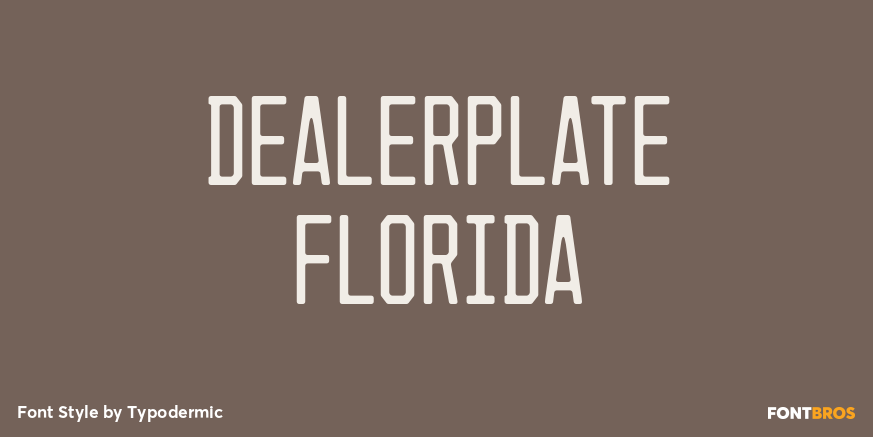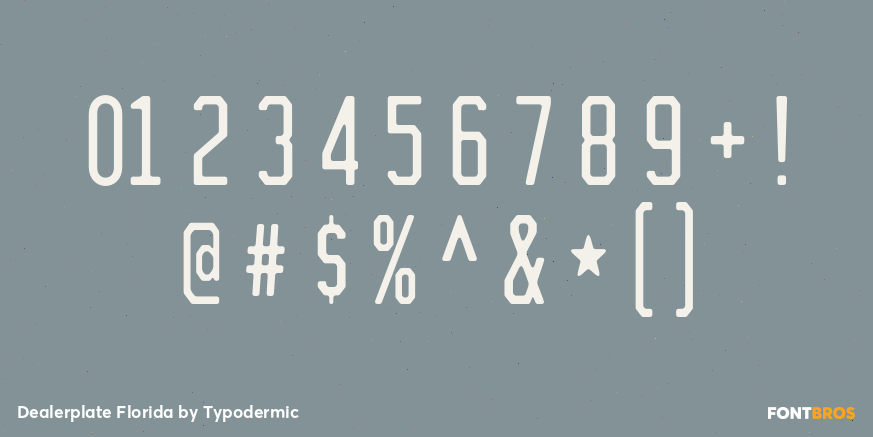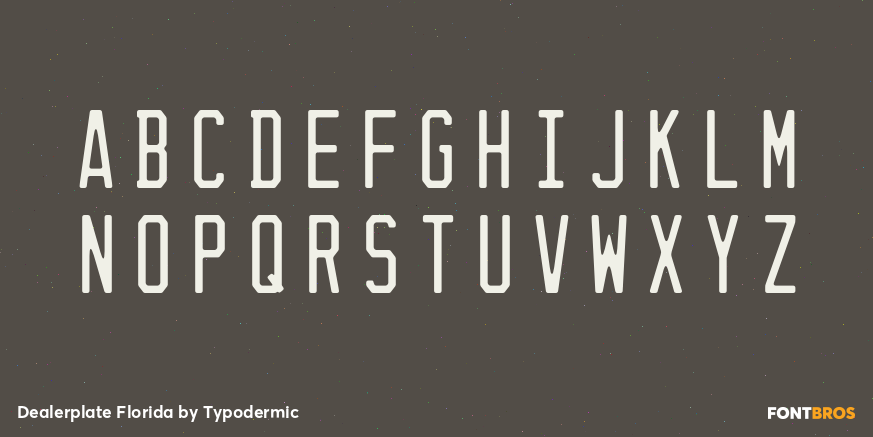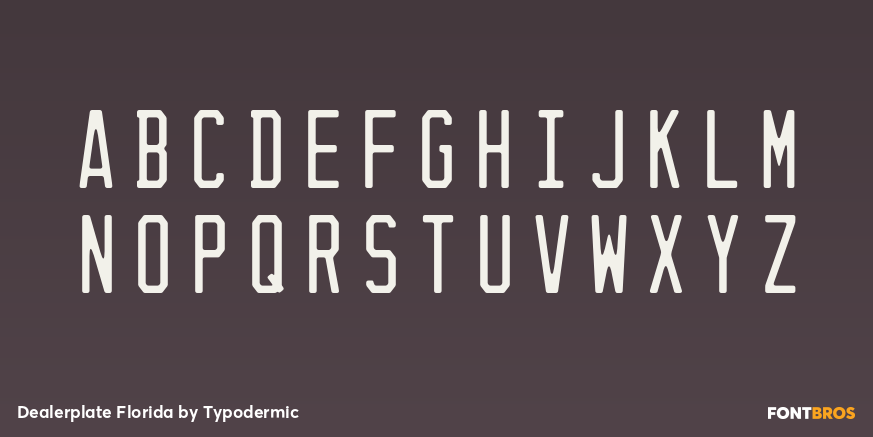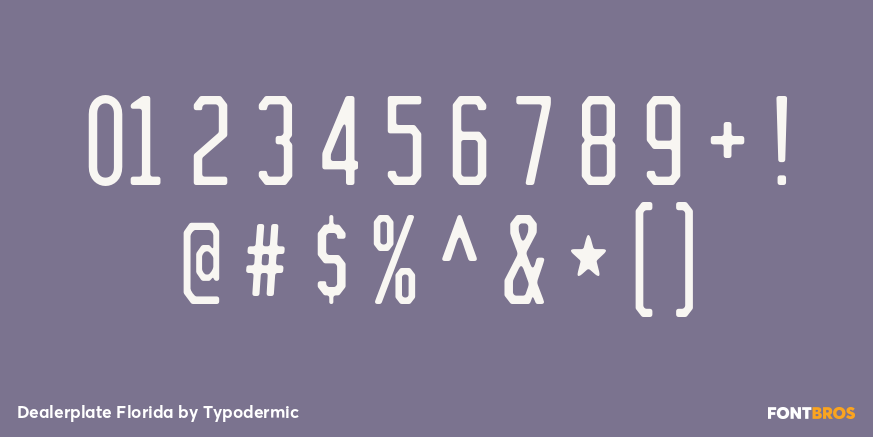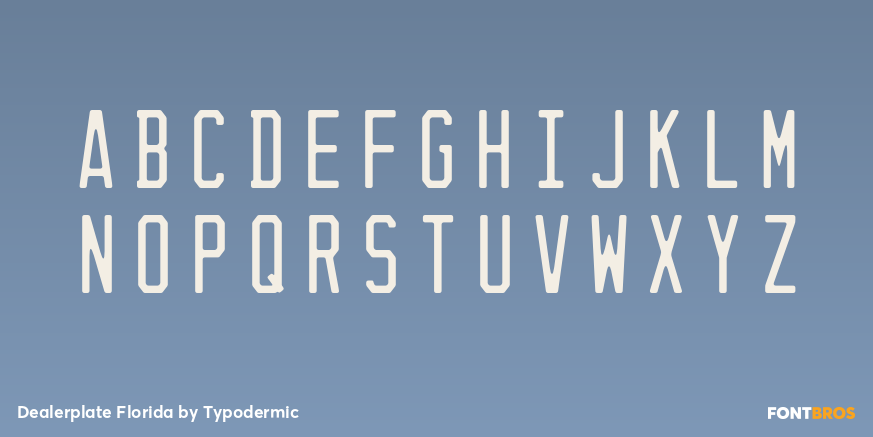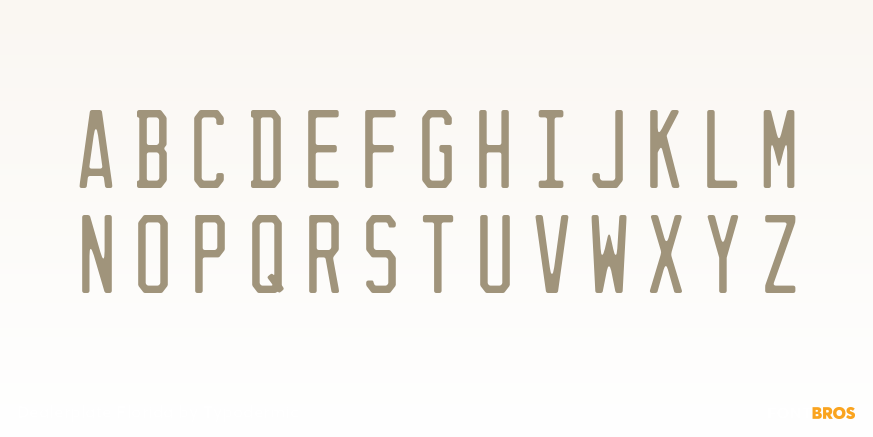
Dealerplate Florida
Dealerplate Florida turns Florida-inspired license-plate lettering into a complete alphabet for production and game work. It gives designers enough characters to build fictional registrations and matching vehicle graphics while retaining the regional cue that helps a prop belong in Florida rather than an unspecified North American setting.
Use it for Miami crime stories, coastal road scenes, tourism campaigns, police-procedural props, racing and open-world games, virtual-production traffic, impound paperwork, evidence photos, parking permits, and dealership inserts. When a plate needs to connect with a case-file heading, vehicle-selection screen, registration document, or background sign, this style keeps the Florida setting consistent across the whole visual system.